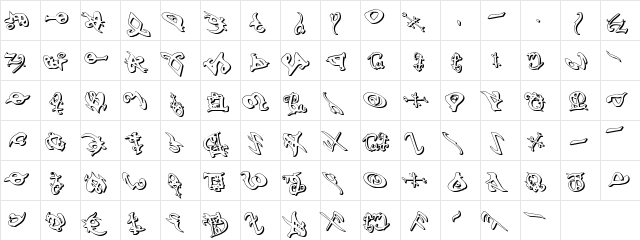
Devil's Tongue 3D Leftalic Italic
Design Context for Devil's Tongue 3D Leftalic Typeface
Devil's Tongue 3D Leftalic is a composed and adaptable typeface that performs quietly and consistently across a wide range of design contexts. The slanted form adds forward momentum and visual energy.
Pro Tip: Try Devil's Tongue 3D Leftalic for annotation and caption copy alongside an upright companion — the contrast in angle creates a dynamic but ordered typographic system.